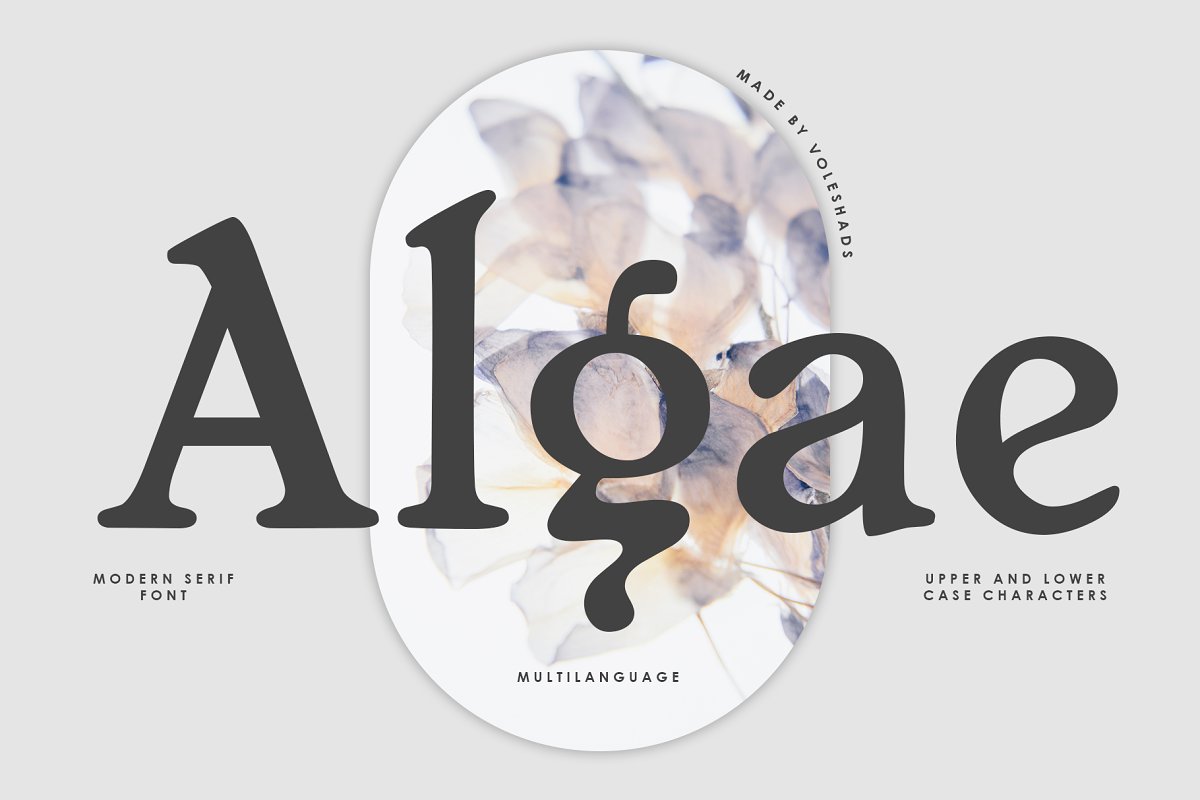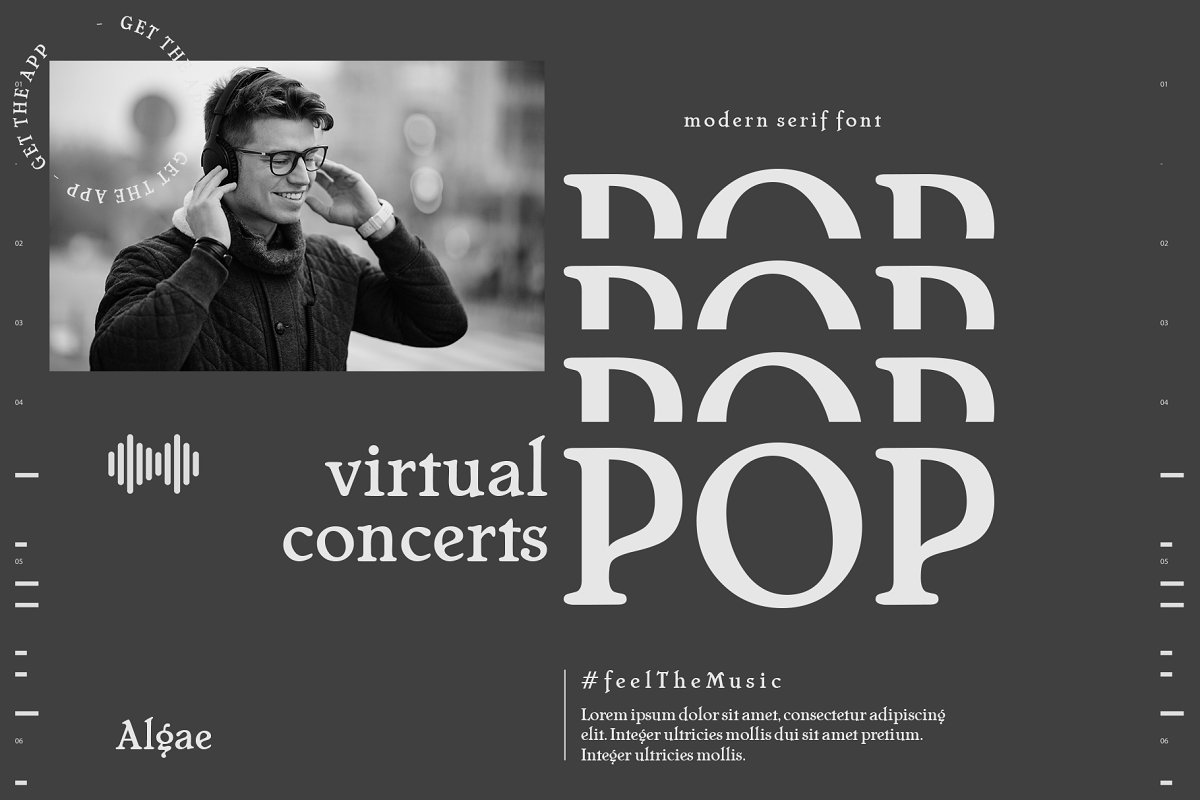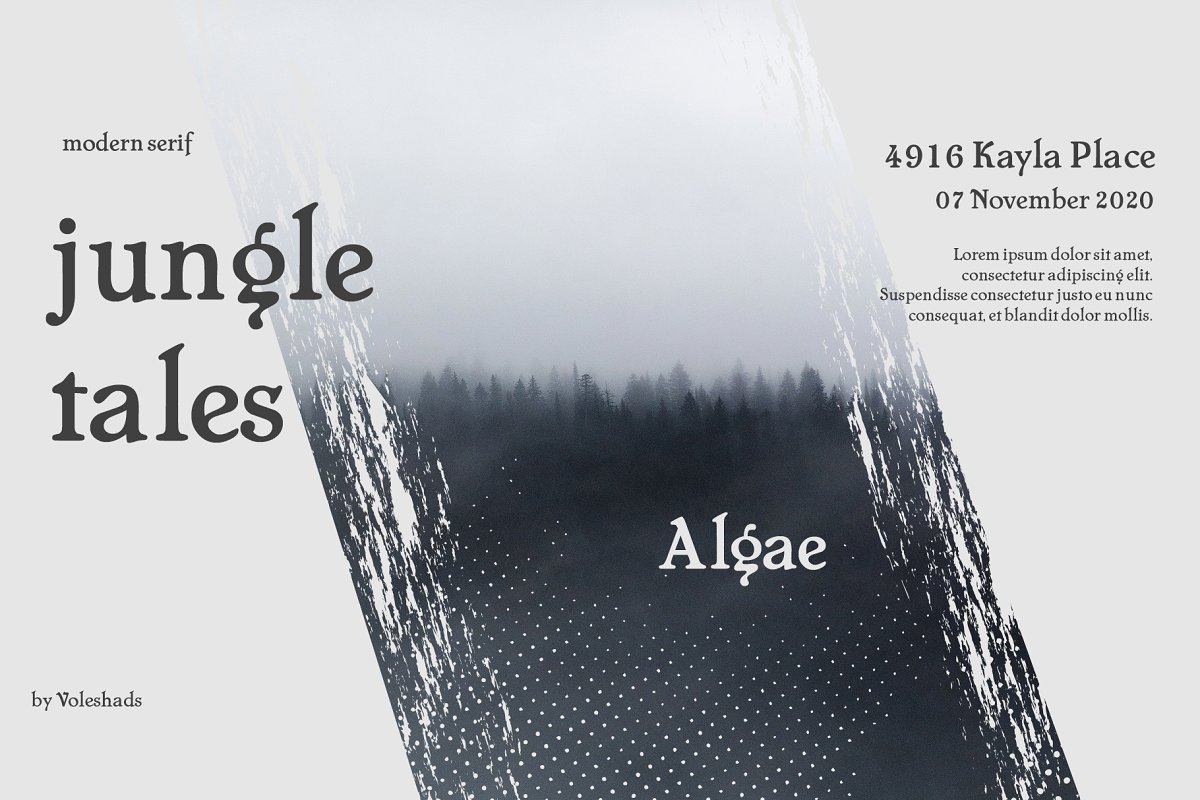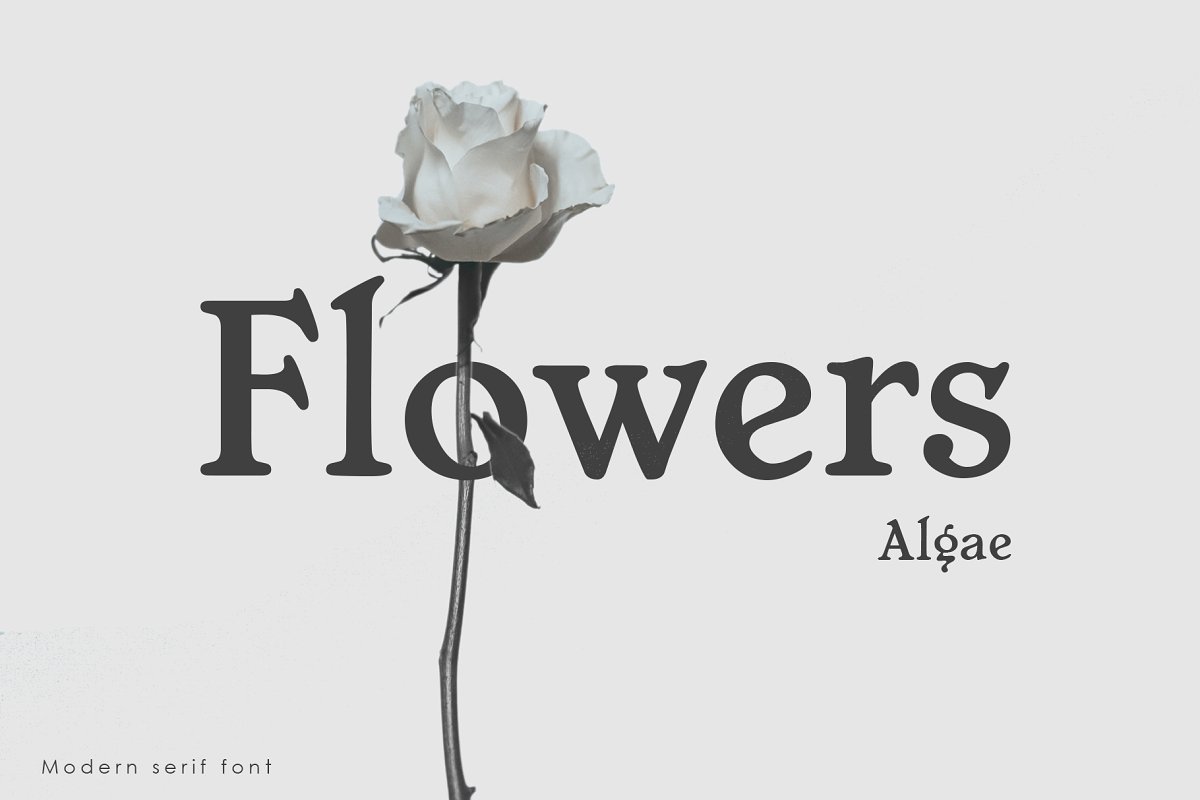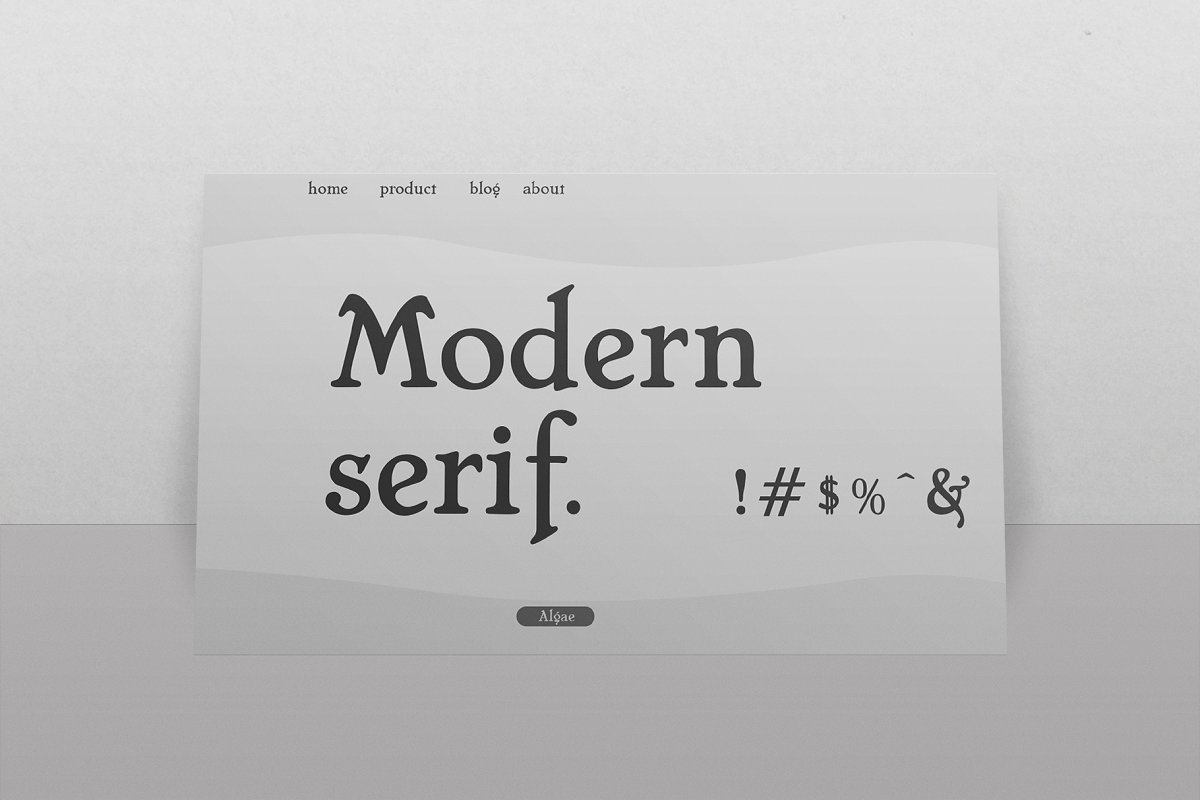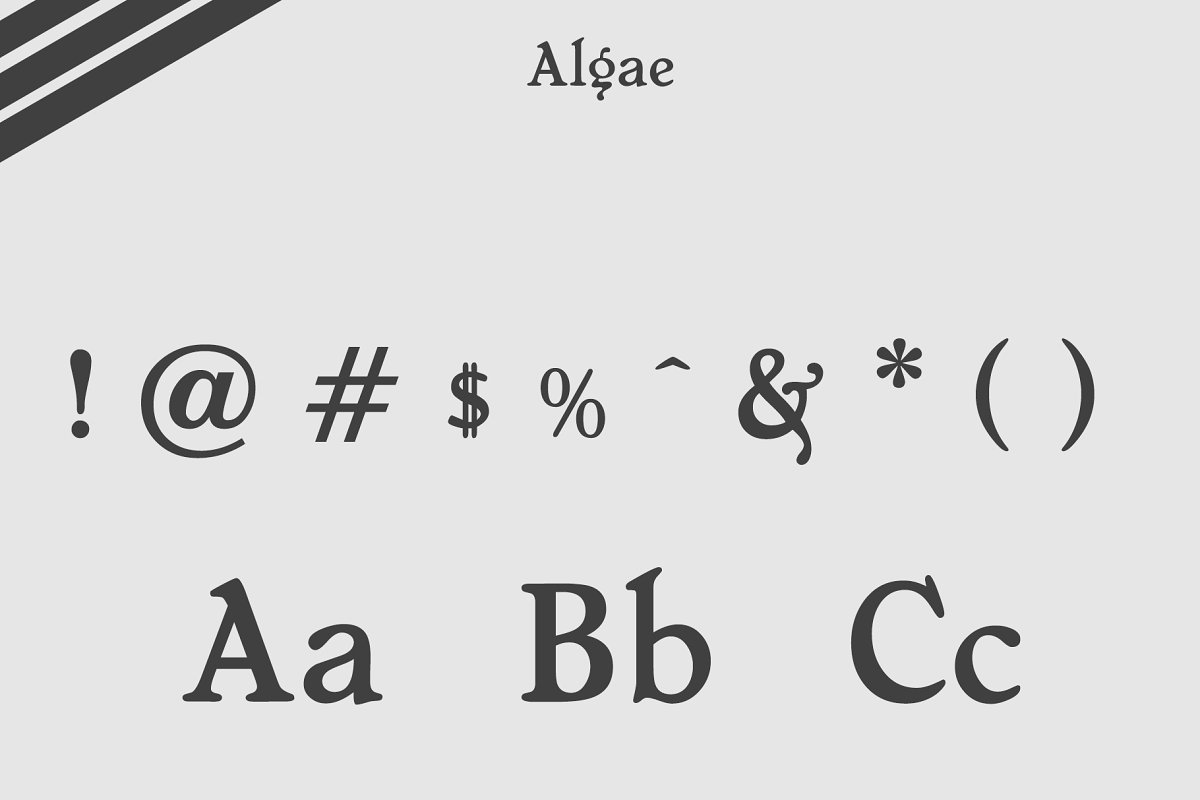
About the Algae Modern Serif Font
Thanks for checking out the modern serif font, Algae, Algae will bring life to all your creations with its elegant and modern look, Algae font have beautiful characters and support multiple languages, The font contains both the uppercase and lowercase characters and comes in several formats like OTF, TTF, WOFF and WOFF2, With the download, you will get :Font files (OTF, TTF, WOFF and WOFF2)